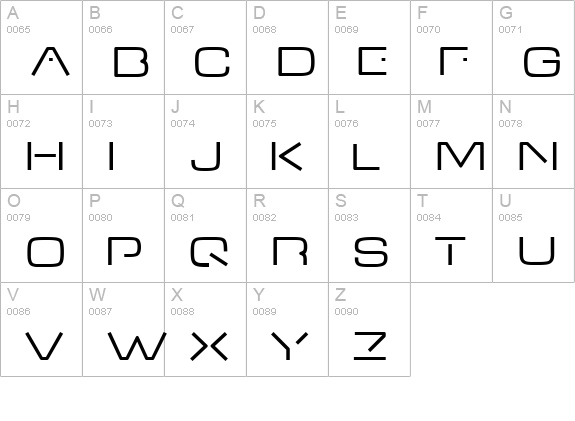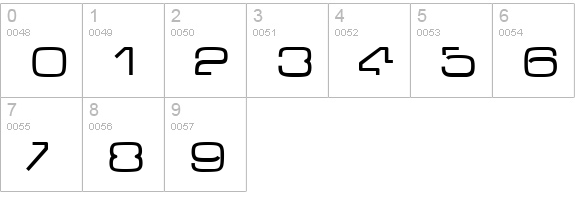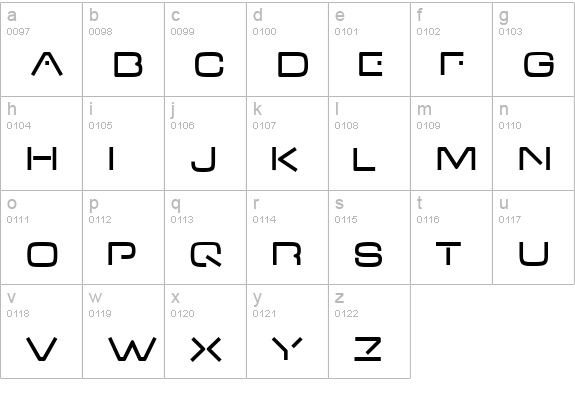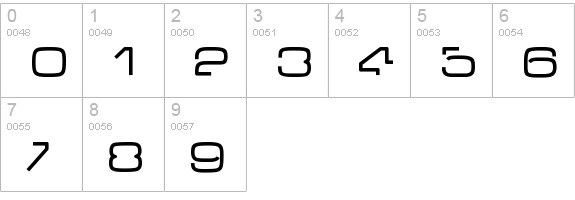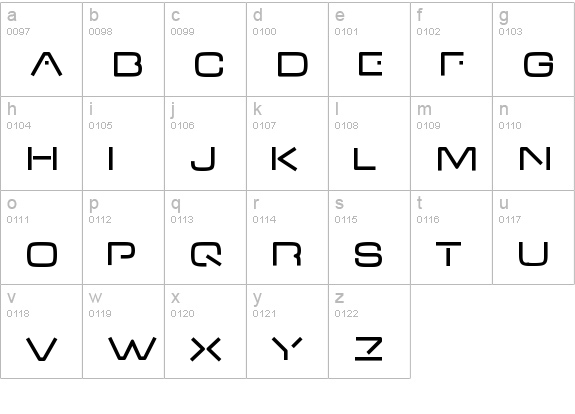
VDub Font Details
The VDub font is a stylish and versatile typeface that exudes a retro vibe with a modern twist. Its bold and dynamic letterforms make a statement on any design project, from posters to logos to packaging. The sharp angles and unique curves of VDub give it a distinctive edge, perfect for adding a touch of personality to your creations. Best of all, the VDub font is completely free to download at FontsMarket.com, making it easily accessible for designers looking to enhance their projects with a fresh and eye-catching typeface. Whether you're working on a branding project or a personal design, VDub is sure to make a lasting impression with its bold and energetic style. Download VDub today and let your creativity soar with this exciting and free font!